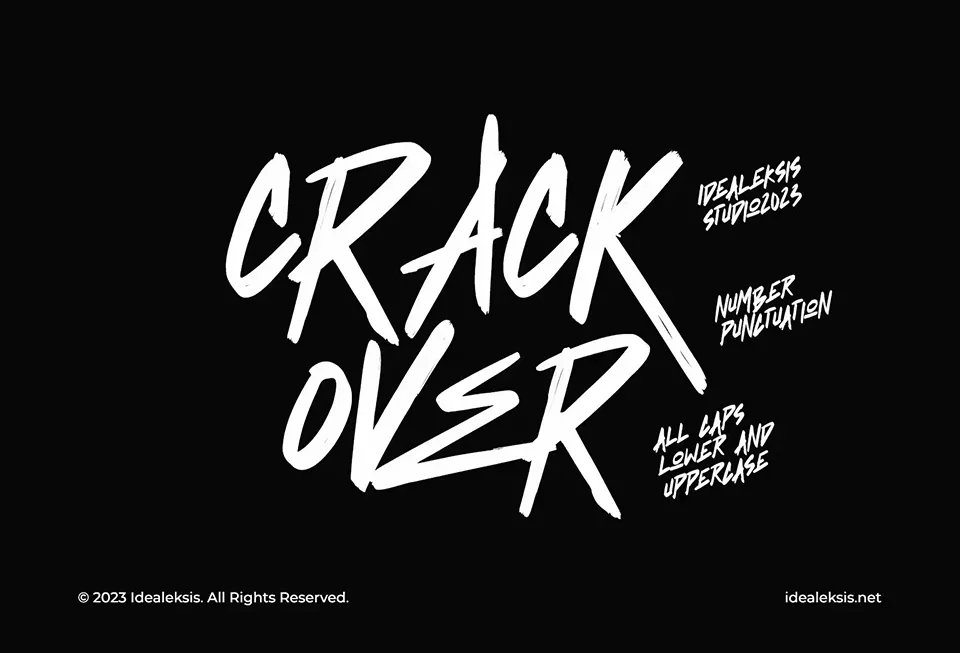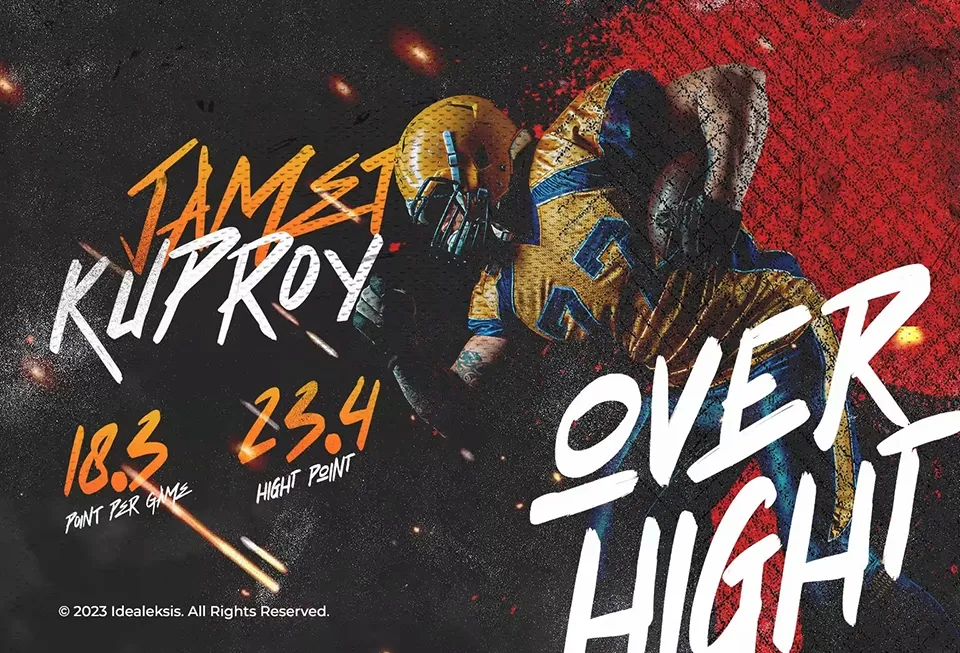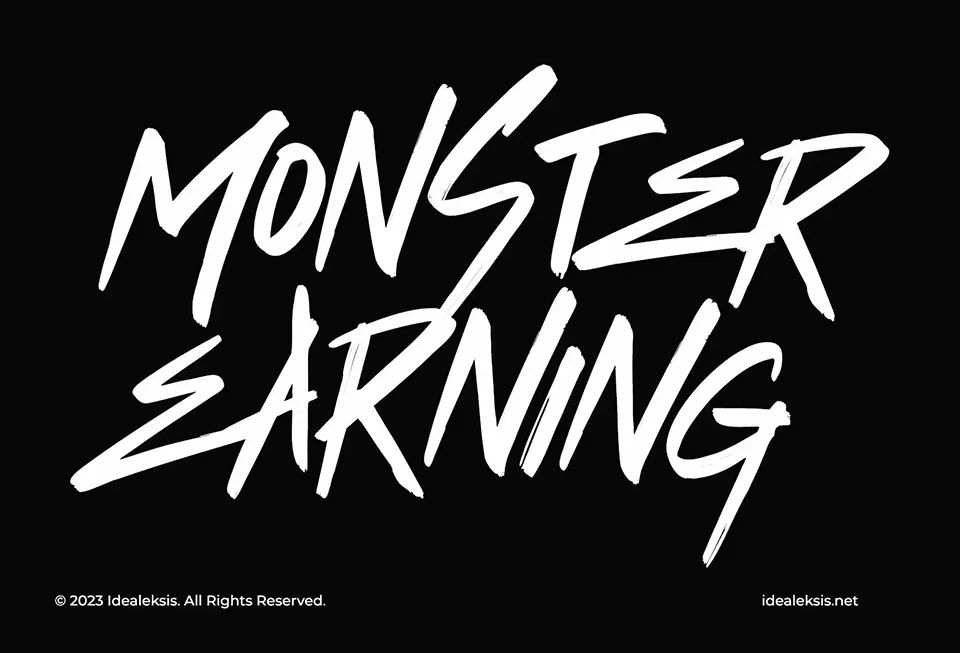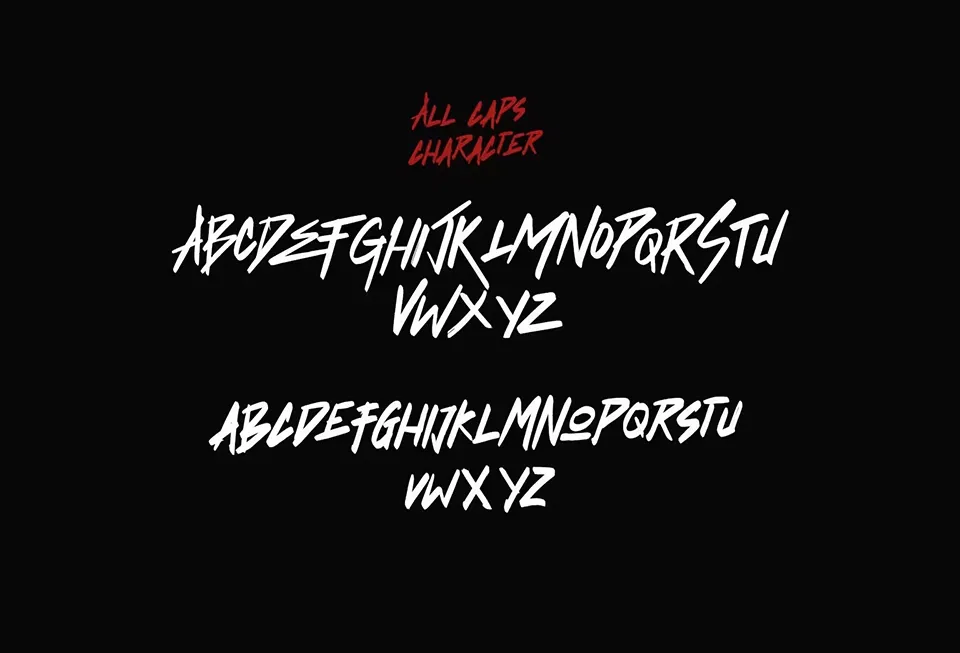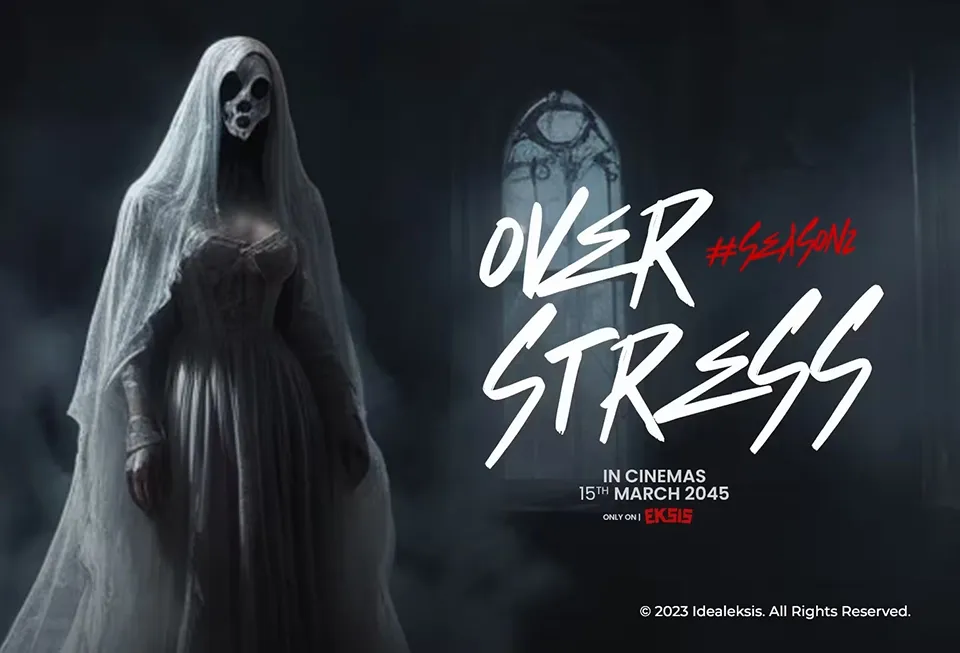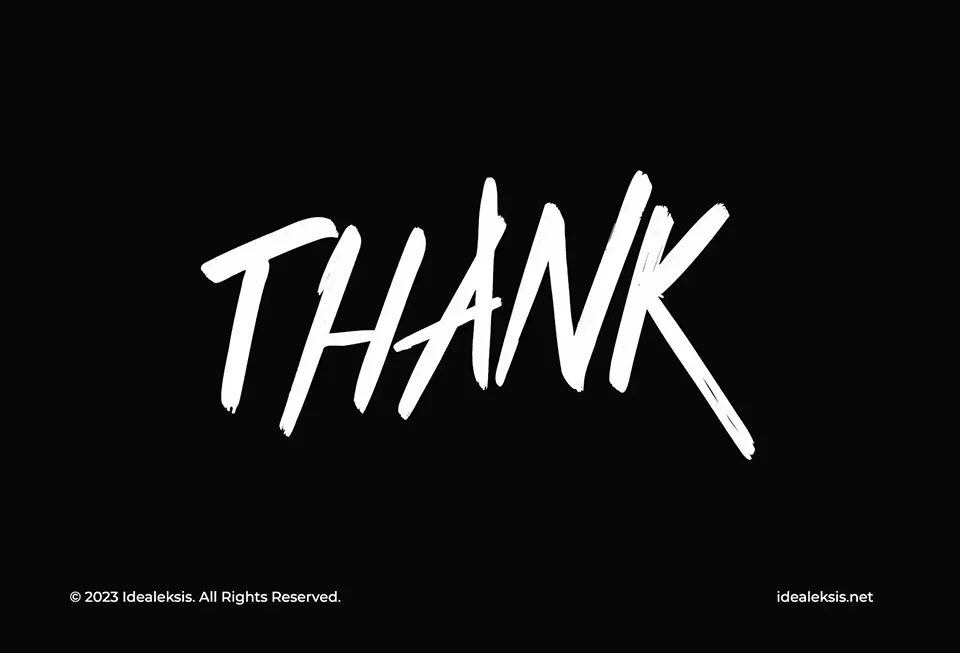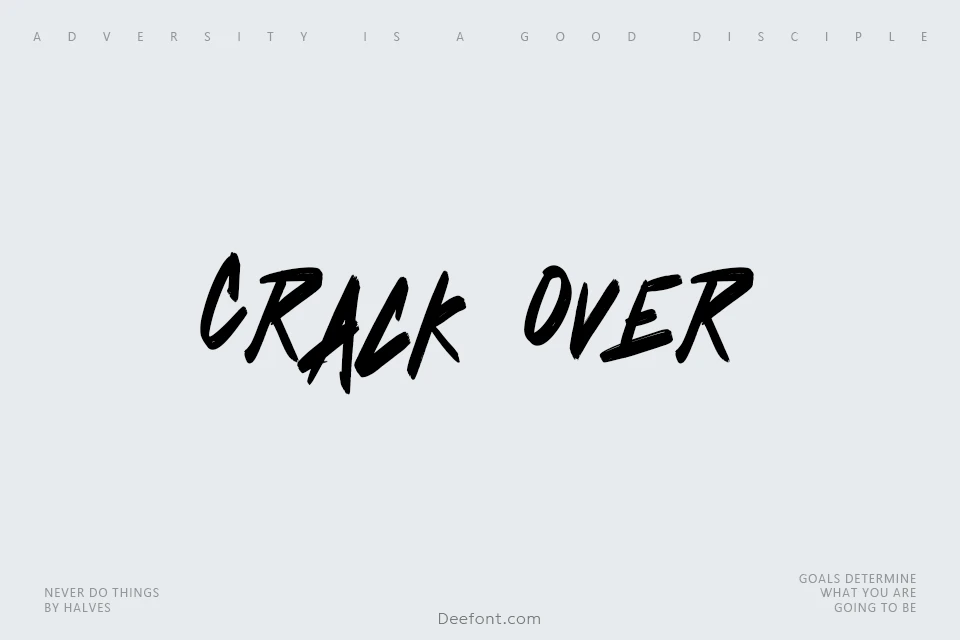
Crack Over Font
Crack Over Font, a bold and dynamic brush typeface designed to make a powerful statement. With its sharp, edgy strokes and expressive style, this font is perfect for projects that demand energy and attitude. Ideal for posters, branding, packaging, and streetwear designs, Crack Over adds a raw and rebellious vibe to your creations. Featuring uppercase and lowercase letters, numbers, and punctuation, it offers versatility while maintaining its striking personality. Whether you’re crafting bold headlines or impactful visuals, Crack Over Font delivers a modern, urban aesthetic that stands out. Elevate your designs with this fearless and captivating typeface!